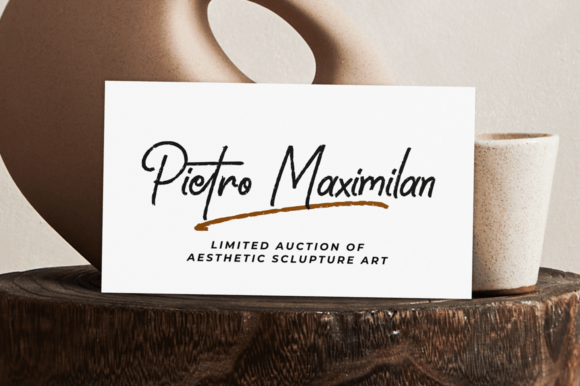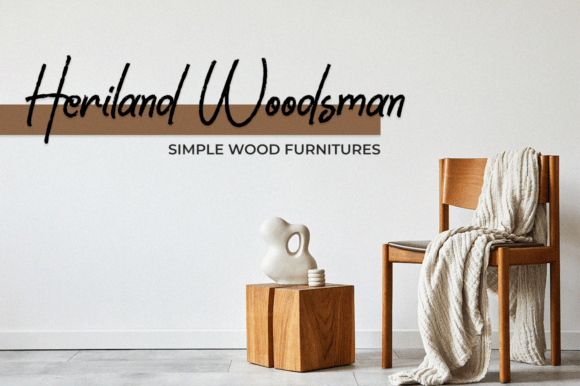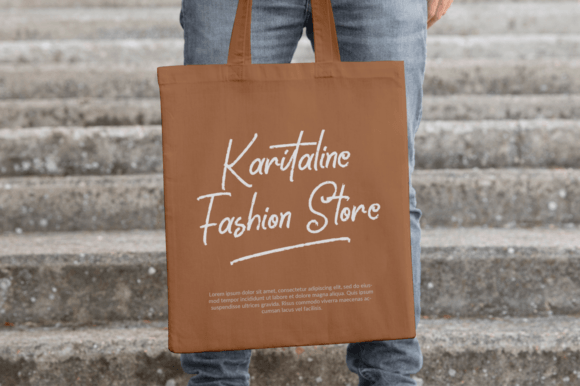
Introduction to Restharted Font
Have you ever found yourself staring at a blank design canvas, desperately searching for the perfect font to bring your creative project to life? You know the feeling – the urge to express yourself, to tell a story, to evoke emotions through the perfect combination of words and typography. For designers, this is a moment of truth, where the right font can make all the difference between a decent design and a truly unforgettable one.
Enter the Restharted Font, a stunning handwritten brush font that’s sure to elevate your designs to the next level. With its bold, confident strokes and nostalgic charm, this high-quality font is the perfect addition to any design resource. Whether you’re working on a logo, a headline, or a complete brand identity, the Restharted Font is the perfect choice for designers who demand the best.
Key Features of Restharted Font
- Designed to be highly legible and visually appealing, with a unique aesthetic that sets it apart from other fonts.
Honest Review: Restharted Font
As a designer, I’m always on the lookout for high-quality design resources to enhance my creative projects. Recently, I had the chance to try out the Restharted Font, and I’m here to share my honest review.
- What works well: ✨ The Restharted Font has a unique, modern aesthetic that can add a touch of sophistication to any design. It’s perfect for creating a professional look and feel.
While the Restharted Font excels in many areas, I did encounter a few limitations: ⚠️ The font family is relatively small, which might limit its usability in certain design contexts. Additionally, some characters may not display correctly in certain fonts or operating systems.
Overall, I’m impressed with the Restharted Font, and I’d recommend it to designers looking for a high-quality, versatile font to add to their design resource arsenal. With a little creativity, this font can help take your design projects to the next level.
Getting the Most Out of Restharted Font
To get the most out of the Restharted Font, use it in conjunction with other high-quality design resources. Experiment with different font sizes, colors, and styles to create a unique look.